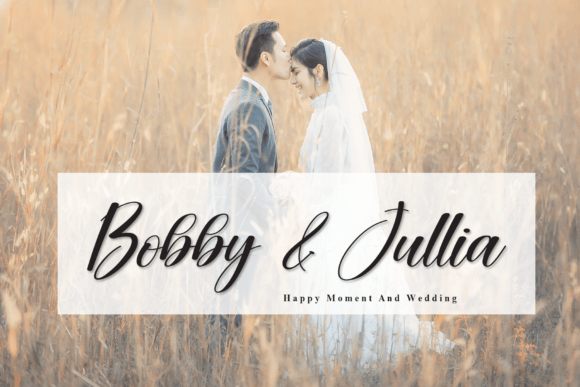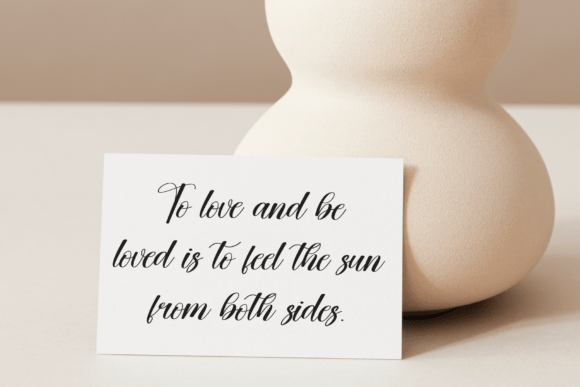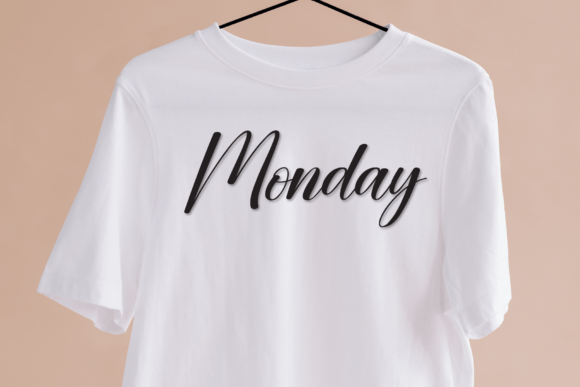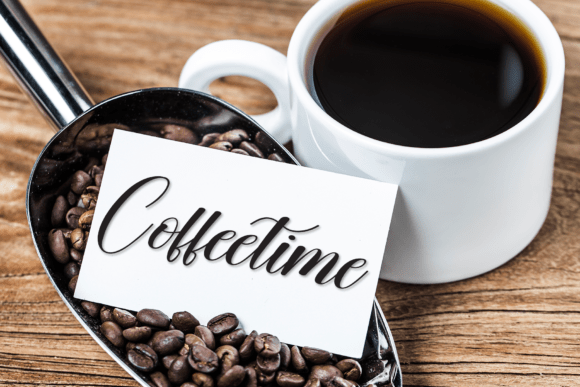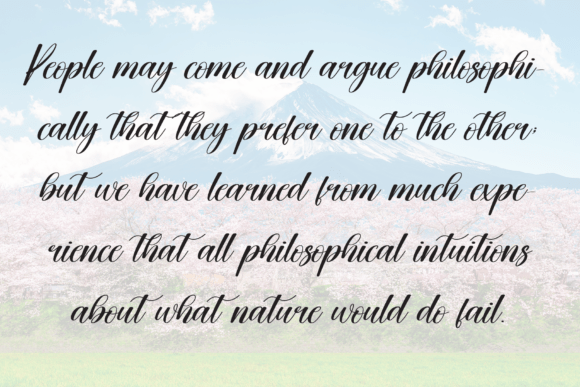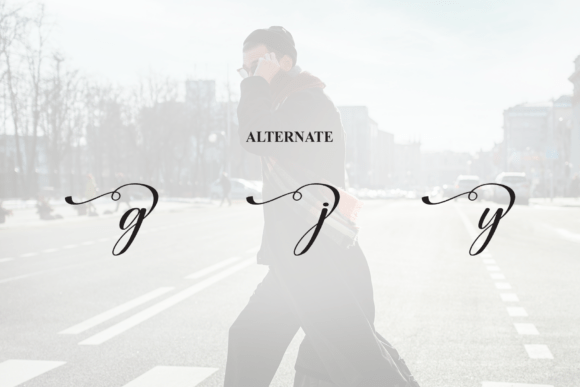
Introduction to Sideway Font
Remember that moment when a beautiful font suddenly sparks an idea for your next creative project? For designers, it’s like finding a hidden treasure that brings their vision to life. One such treasure is the lovely and timeless Sideway Font, a handwritten font that exudes elegance and sophistication. Its unique and beautiful touch is perfect for creating eye-catching logos, branding, and quotes that leave a lasting impression.
Whether you’re working on a high-quality design resource or need a free download for your next project, the Sideway Font is an invaluable asset for designers. Its transparent background and beautiful lettering make it an ideal choice for any creative project, from branding to social media graphics. With its high quality and versatility, the Sideway Font is sure to become a go-to design resource for many designers.
Sideway Font Key Features
- Unique, hand-drawn design for creative projects and artistic expressions
Honest Review: Sideway Font
I recently stumbled upon the Sideway Font while searching for a unique design resource to elevate my creative project. I was excited to give it a try and see if it could deliver on its promise of high quality and versatility.
- ✨ The font’s modern and sleek design makes it perfect for a wide range of creative projects, from digital displays to print materials.
- ⚠️ The Sideway Font may not be suitable for projects that require a lot of text, as its unique design can make it difficult to read at smaller font sizes.
Overall, I was impressed with the Sideway Font’s potential and versatility. While it may have some limitations, its unique design and high quality make it a great addition to any designer’s toolkit. With a little creativity and experimentation, you can unlock the full potential of this design resource and take your creative project to the next level.
Sideway Font
The Sideway Font is a versatile design resource that offers a unique twist on traditional typography. With its transparent background and high-quality design, it’s perfect for adding a touch of creativity to your next project.
To get the most out of the Sideway Font, try using it in conjunction with other design elements, such as images and graphics. This will help to create a visually appealing and engaging design.
The Sideway Font is perfect for a variety of creative projects, including:
- Presentation designs
- Document templates